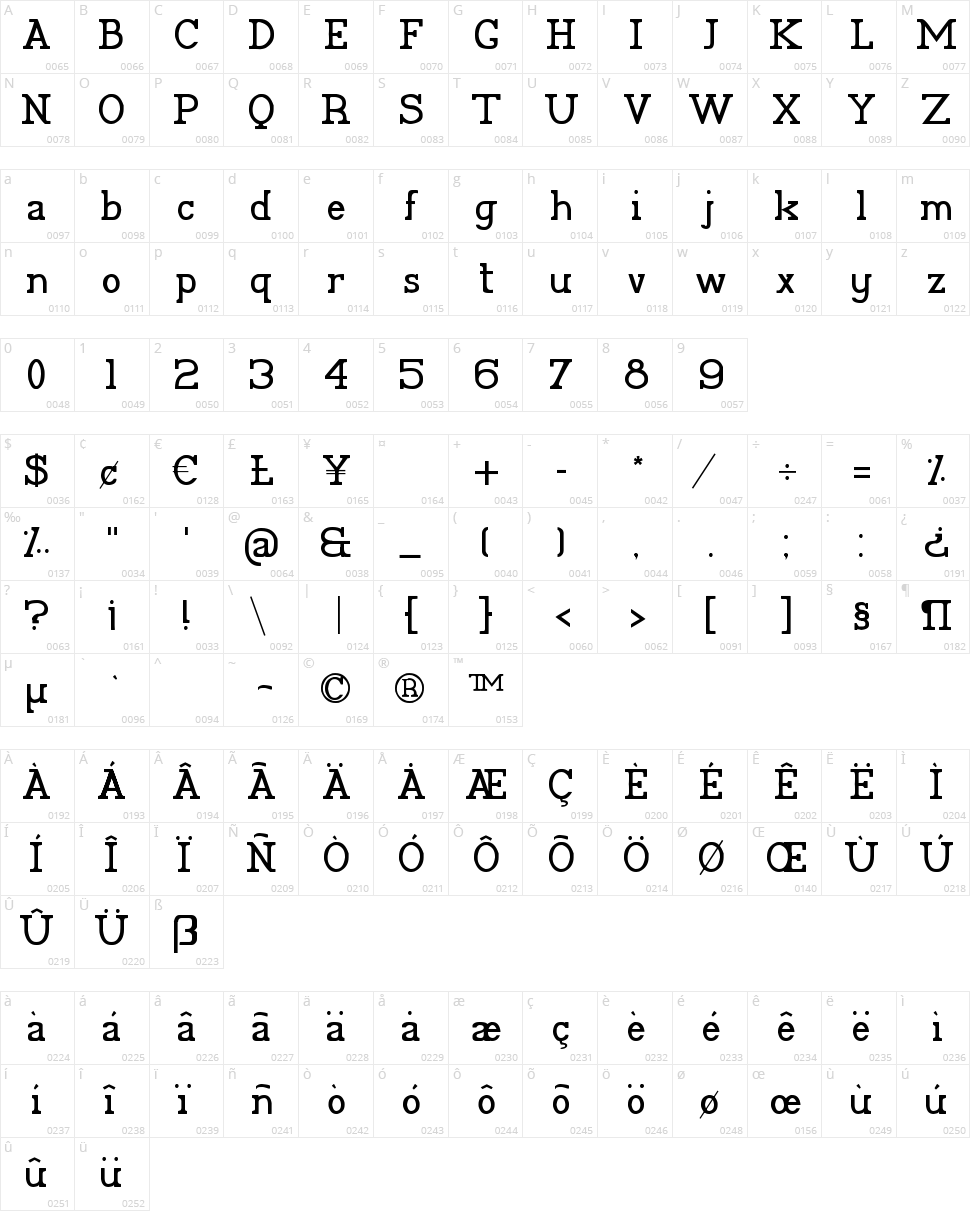
Pelida
This font was designed to be useful to latin and greek languages. If you want the complete set of Imelda, please don't doubt it. Write me to  or  , or